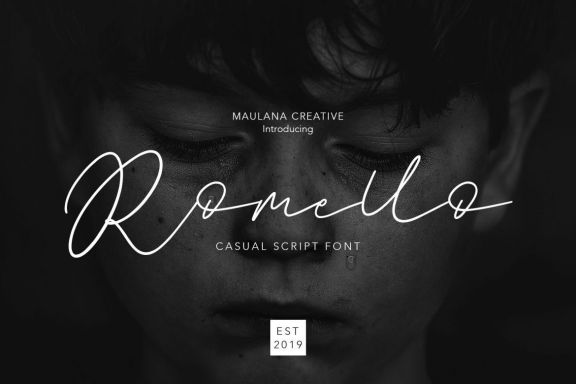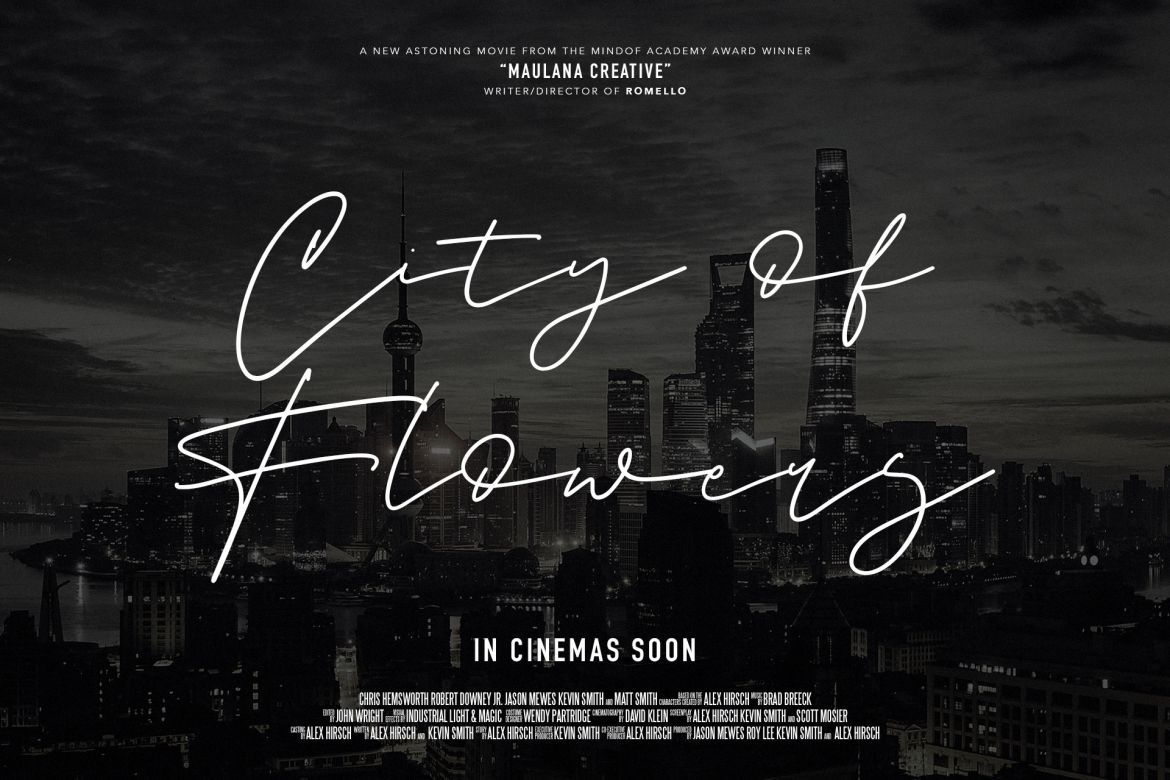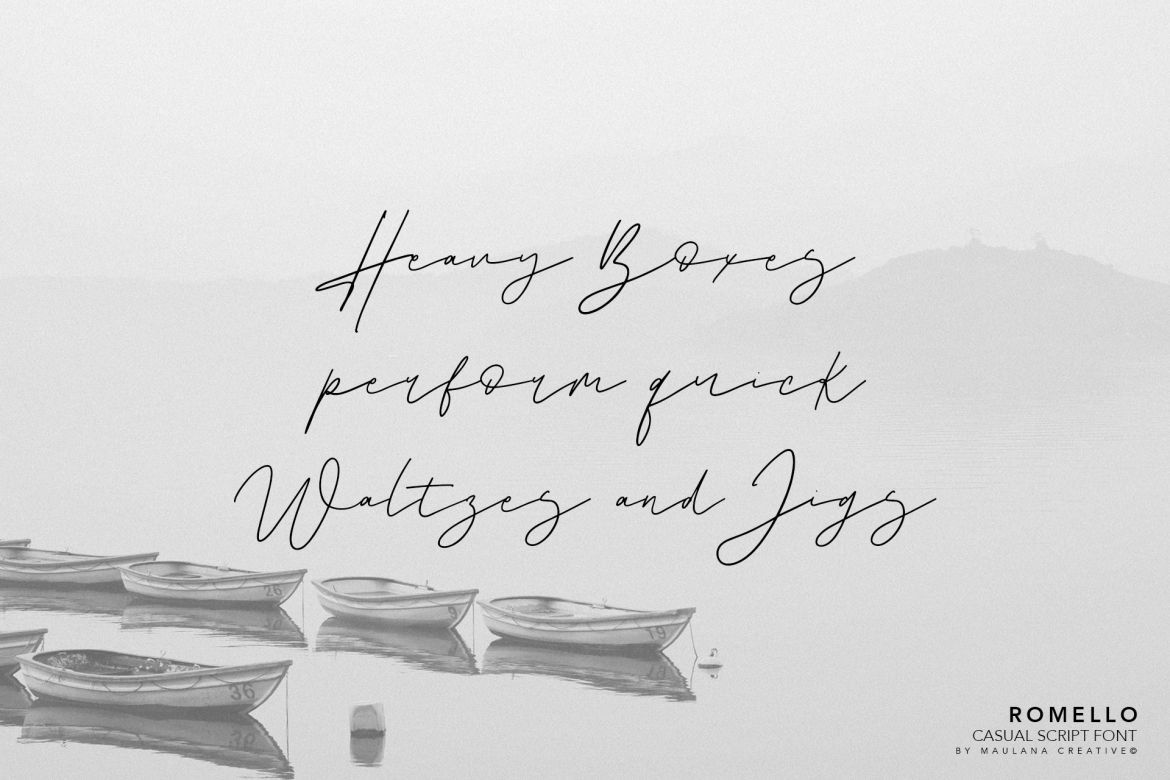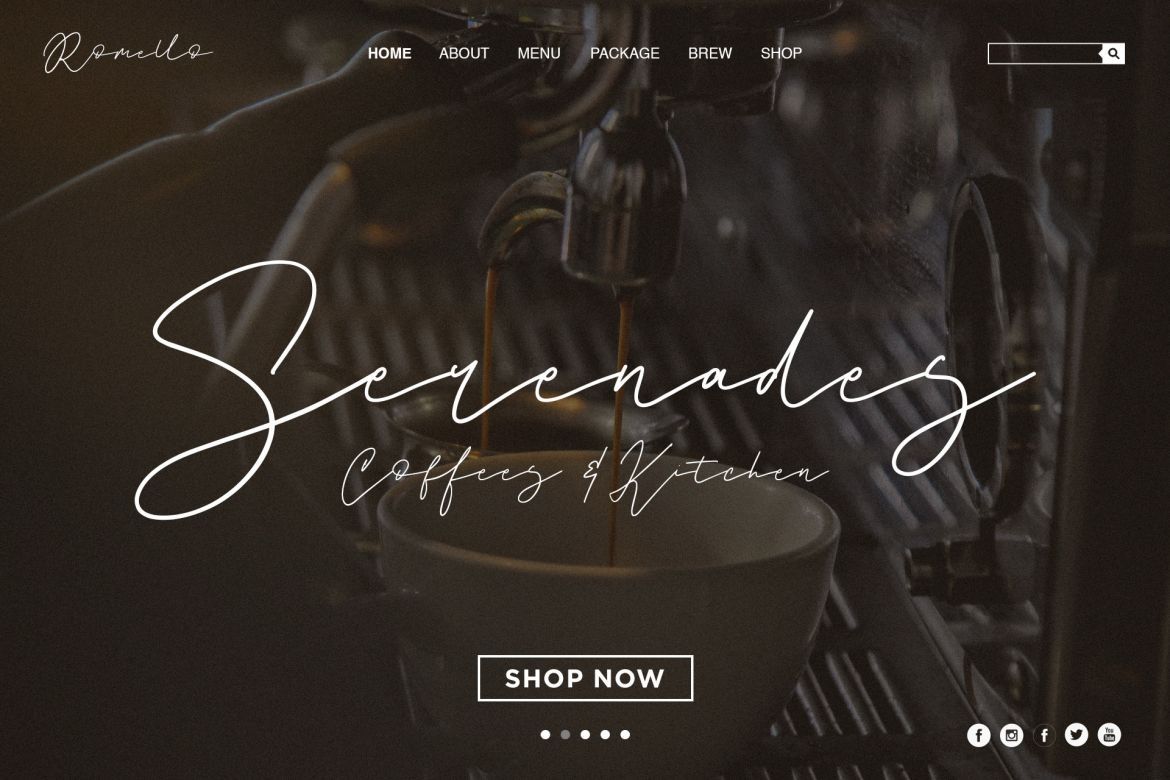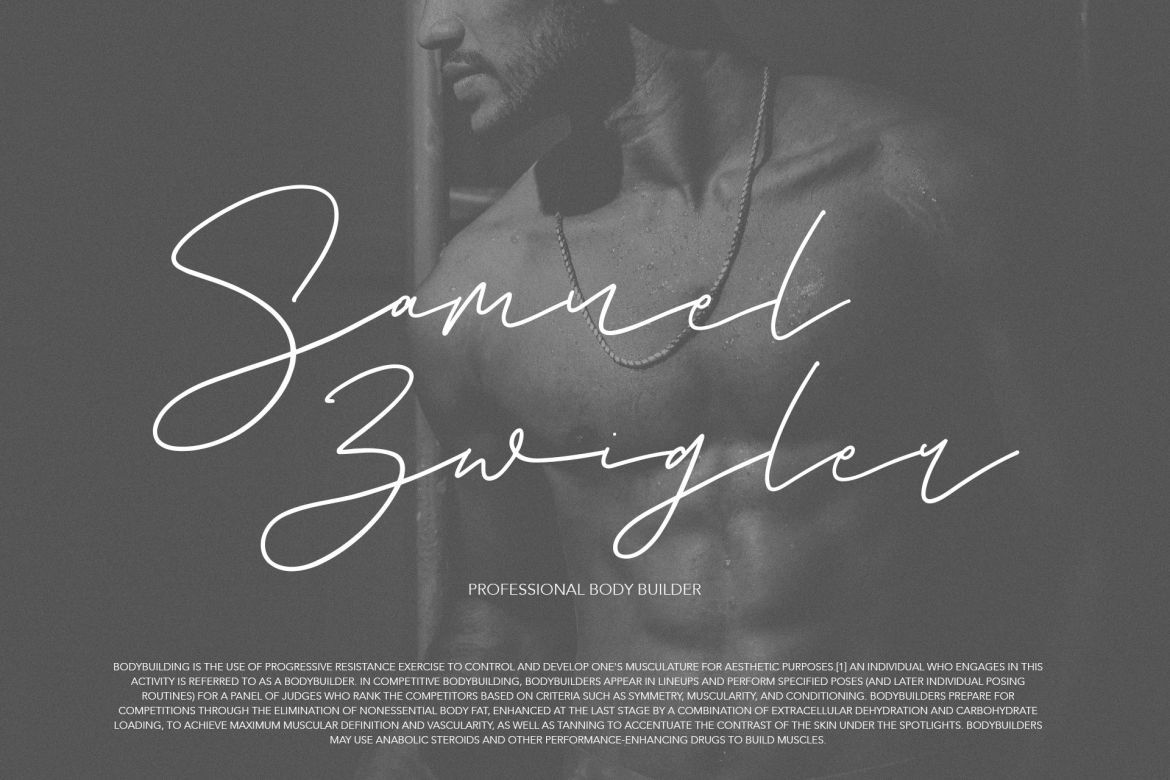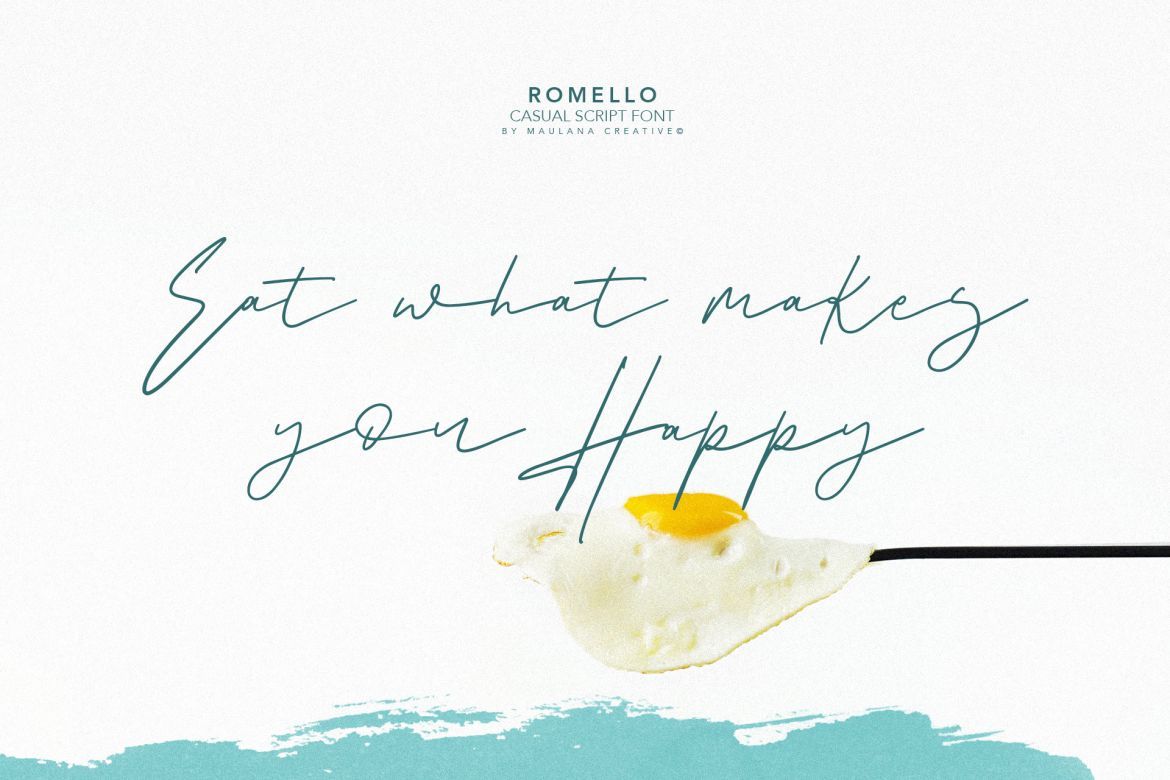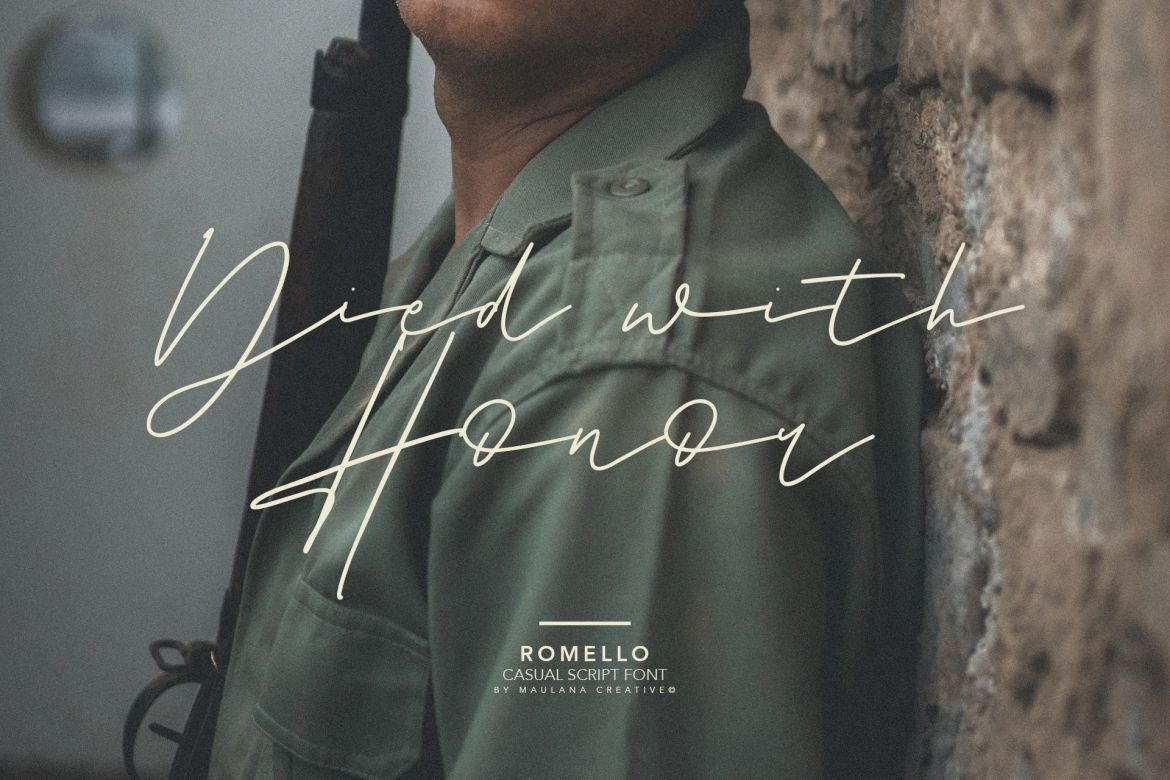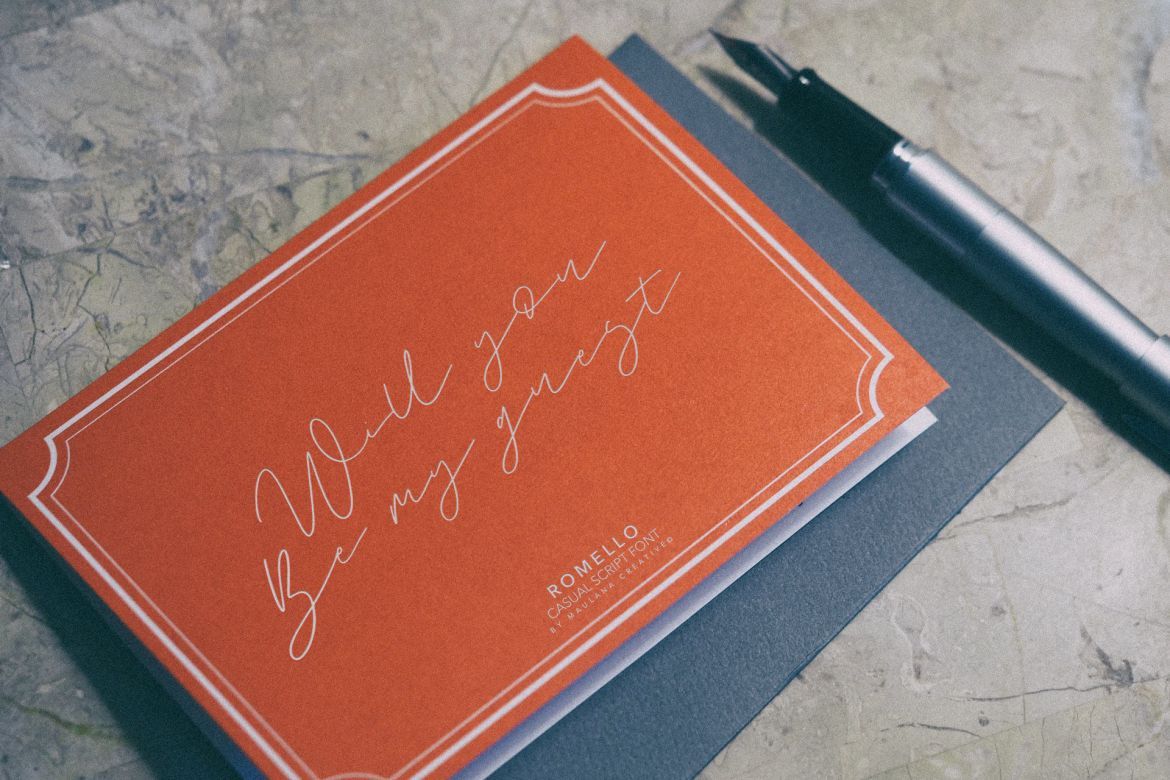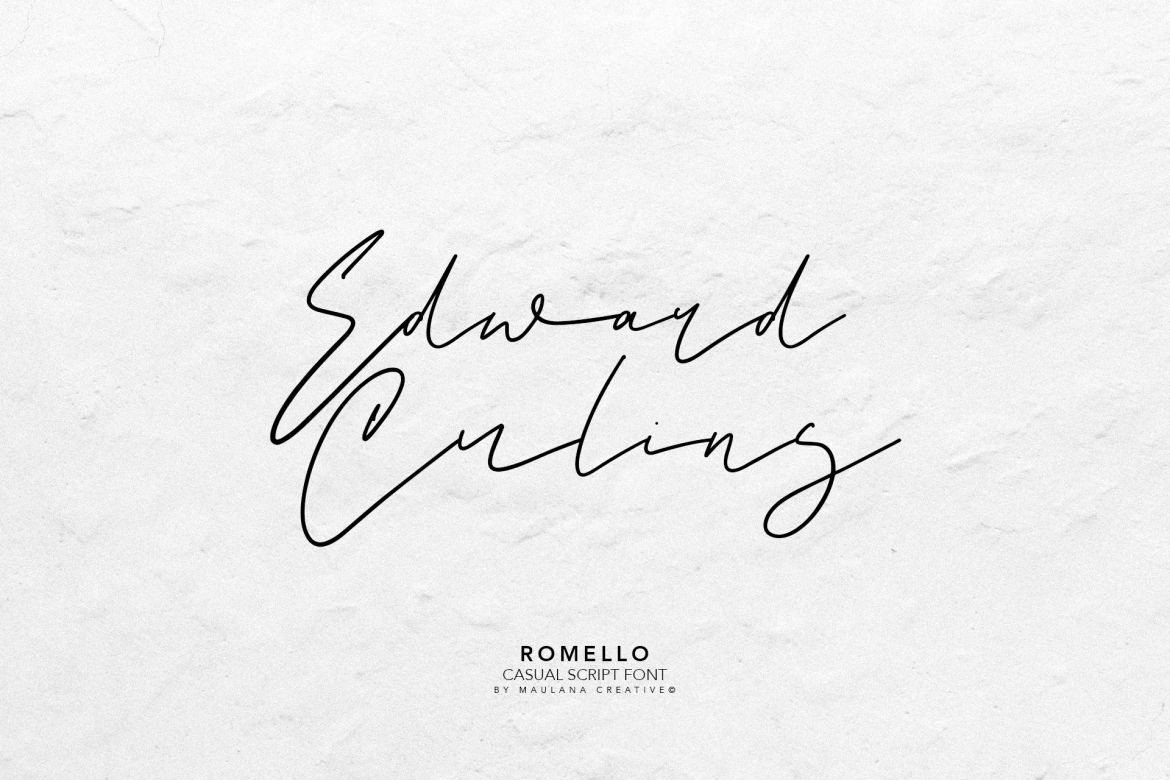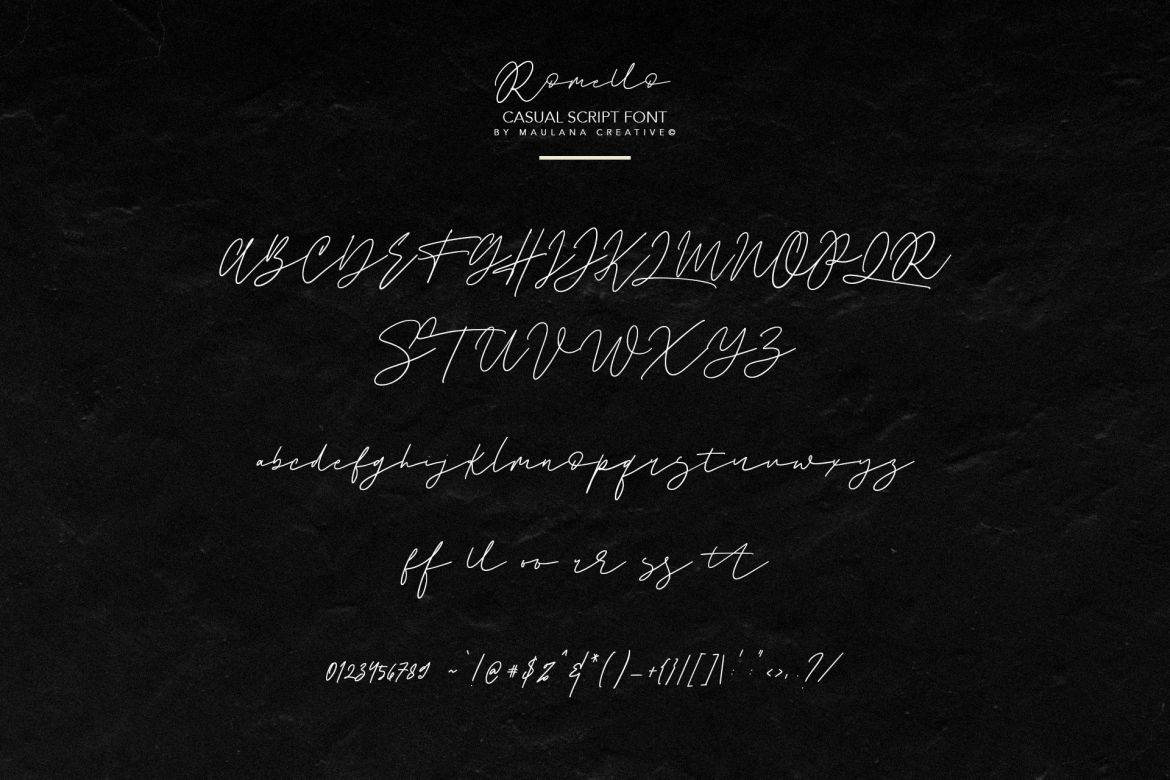
Romello Brush Signature Font
Give your designs an authentic handcrafted feel. "Romello" is perfectly suited to signature, stationery, logo, typography quotes, magazine or book cover, website header, clothing, branding, packaging design and more.